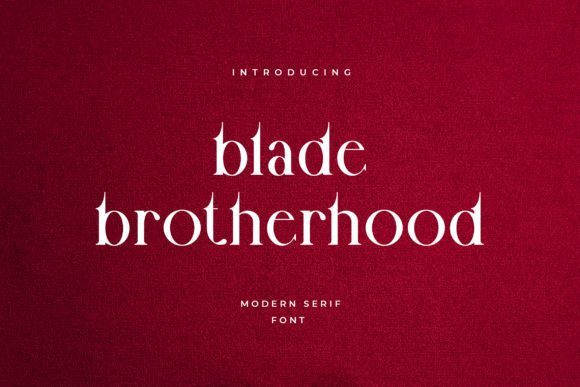
Unleash the Boldness: Meet Blade Brotherhood, the Serif Font That Commands Attention
In the vast realm of fonts, Blade Brotherhood emerges as a shining star, a serif font that exudes both daring and elegance. Its striking presence is sure to leave an unforgettable mark on your creative projects.
Immerse yourself in the world of Blade Brotherhood and discover its captivating charm. Let your imagination run wild as you explore the boundless possibilities it offers. From letterheads that exude professionalism to titles that radiate sophistication, Blade Brotherhood is your steadfast companion in crafting captivating designs.
But Blade Brotherhood's allure extends far beyond mere aesthetics. It's a font that speaks to the heart of creativity, igniting a fire within you to produce breathtaking works of art. Whether you're a seasoned designer or just starting your artistic journey, Blade Brotherhood will elevate your creations to new heights.
With its versatility and timeless appeal, Blade Brotherhood is the perfect choice for a wide array of projects. Stationery takes on a new level of refinement, while logos gain an edge that sets them apart from the ordinary. Unleash your inner artist and let Blade Brotherhood guide you toward masterpieces that will leave a lasting impression.